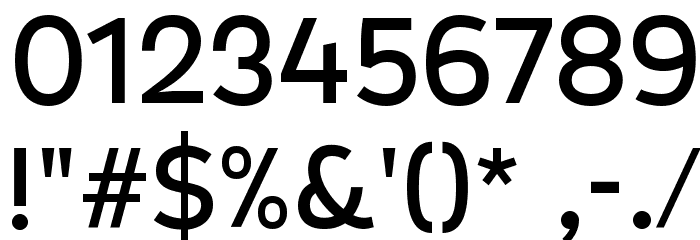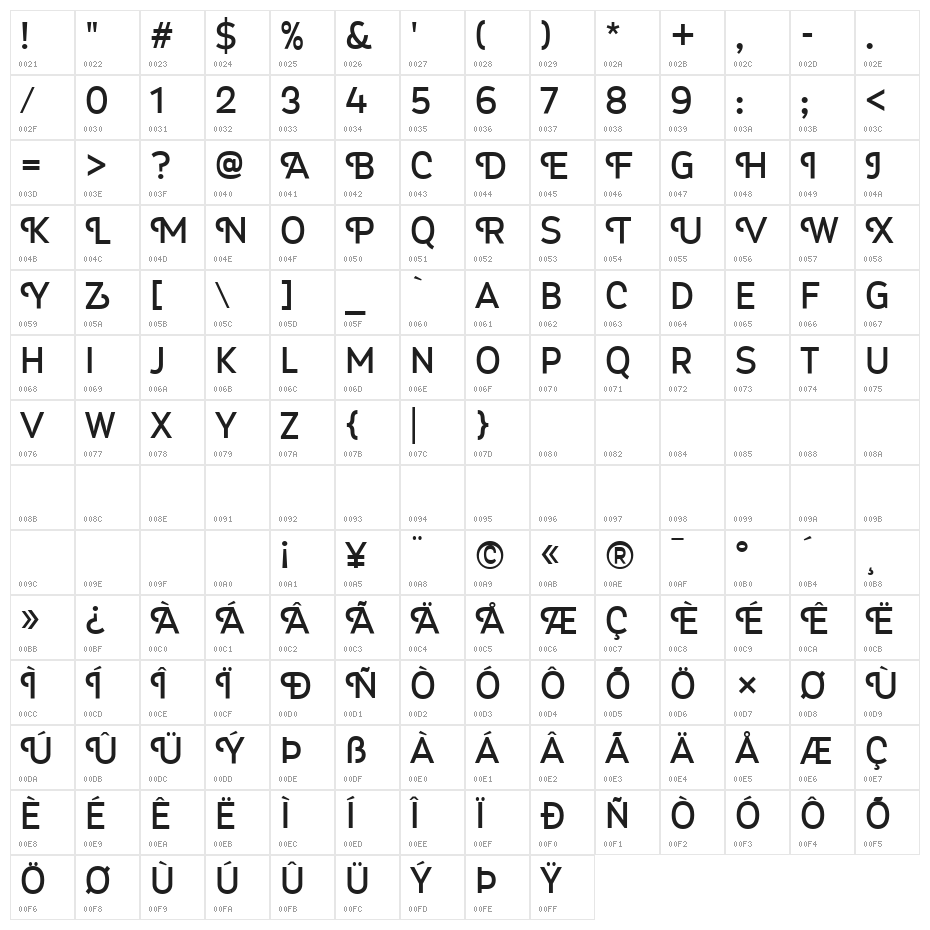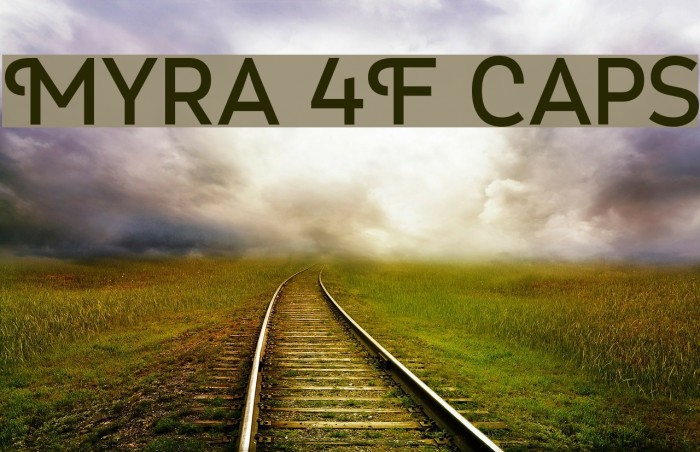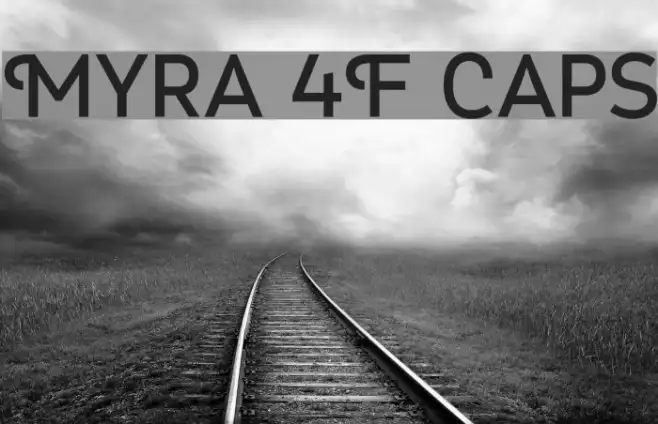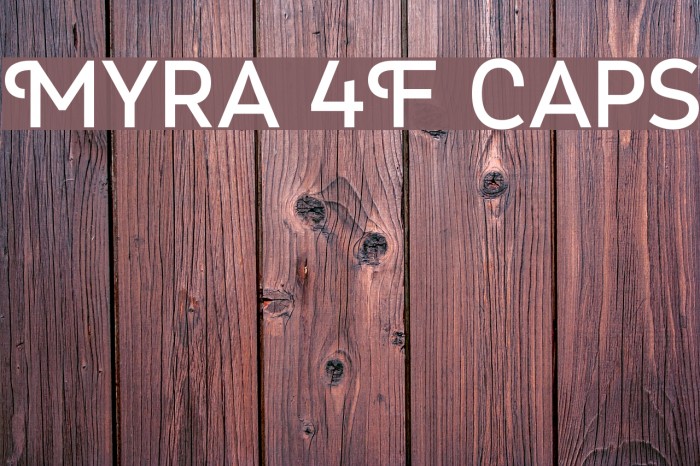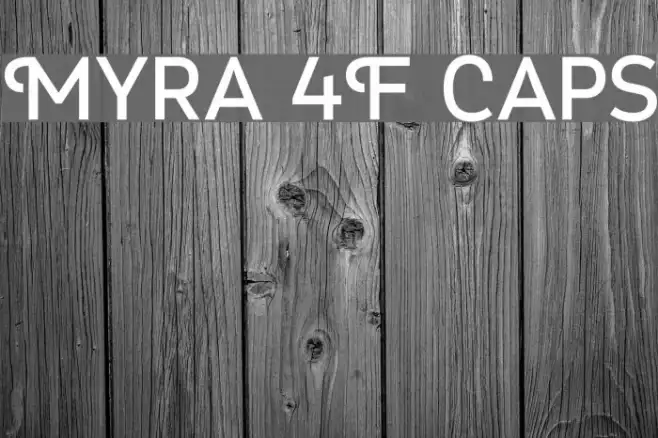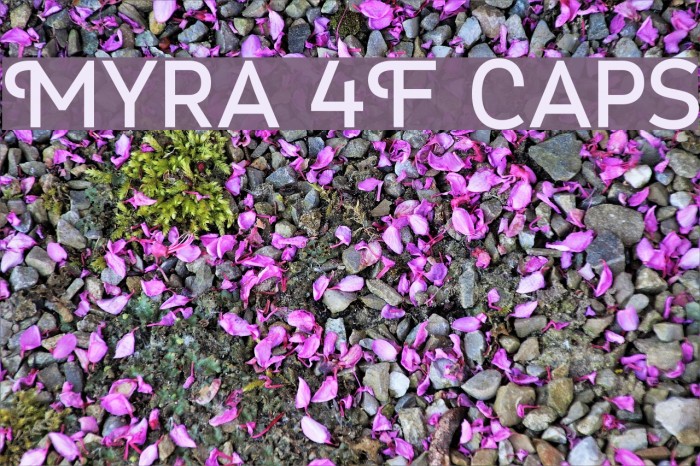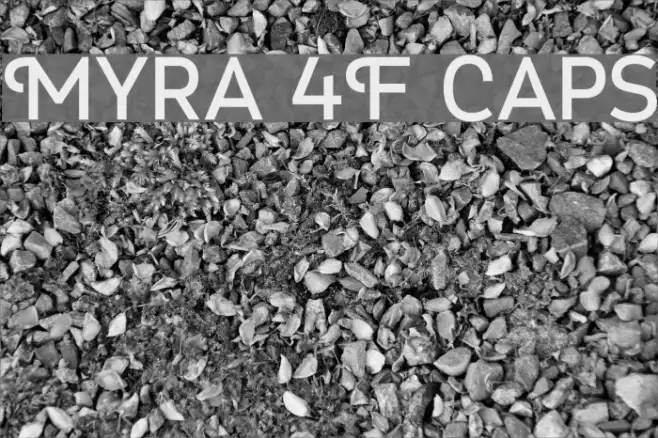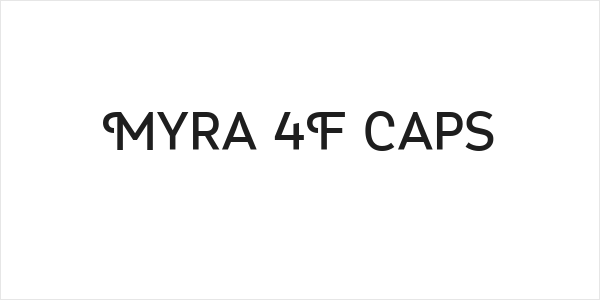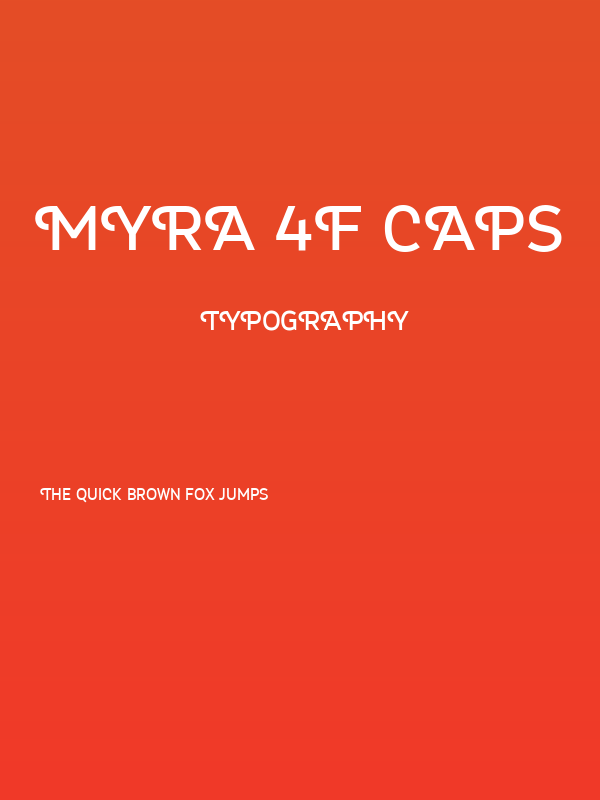
Myra 4F Caps Font
Myra 4F Caps Description
This font features a modern and clean design with a sans-serif style. The uppercase letters have a unique, slightly curved terminal, giving them a distinctive look. The lowercase letters maintain a consistent stroke width, contributing to a balanced and harmonious appearance. The numerals are clear and easy to read, making them suitable for various applications. The special characters are well-defined, ensuring versatility in usage. Overall, this font's simplicity and elegance make it ideal for contemporary design projects.